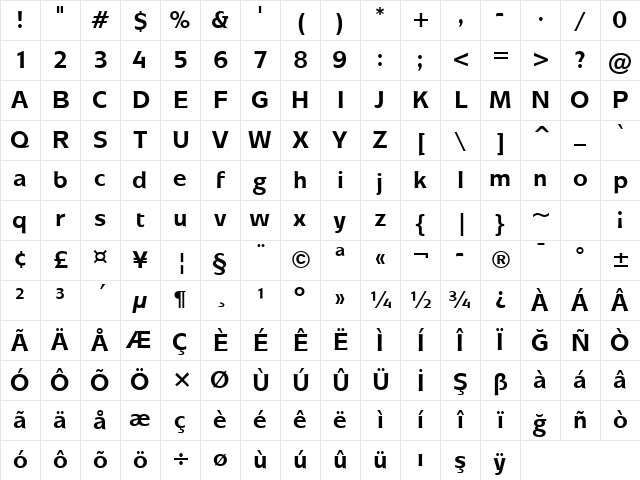
Mixage Bk BT Bold
Design Context for Mixage Bk BT
Mixage Bk BT is a composed and adaptable typeface that performs quietly and consistently across a wide range of design contexts. Its bold stroke weight gives it real presence on the page.